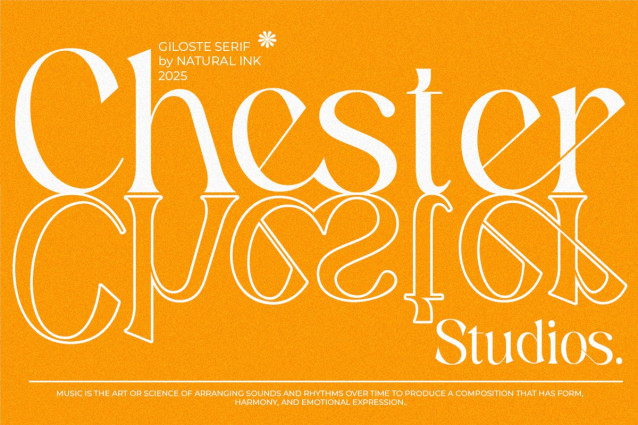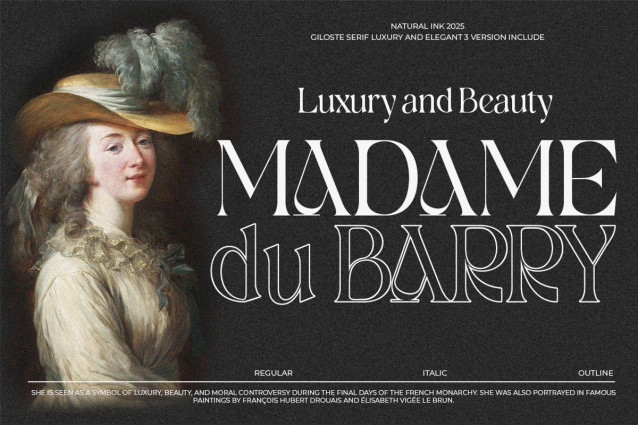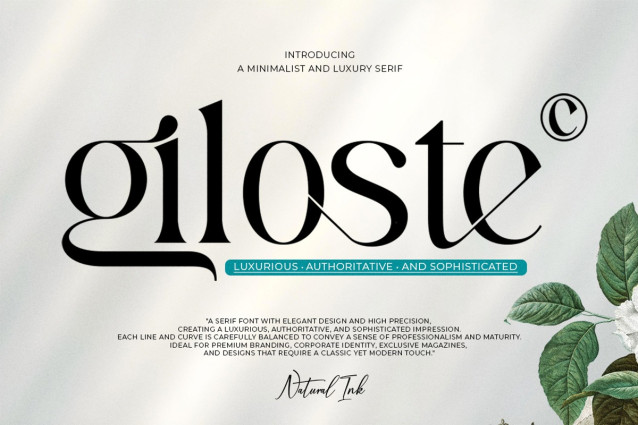
Giloste Font
Giloste Font A simple, clean, and visually elegant serif look with subtle curves and beautiful ligatures. This highly versatile font can be used in both large and small sizes. It’s suitable for a wide range of projects, including titles, logos, labels, branding projects, magazines, homeware designs, product packaging, mugs, quotes, posters, and more.